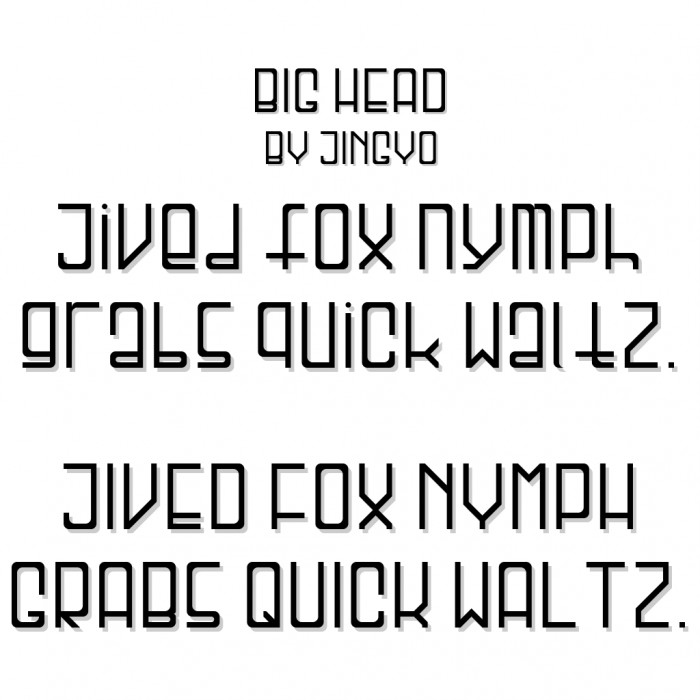
• If you want to know, A,B,P,S.... are (head)3:1(body).
MOST OF letters are 12x6 except I,T,Y,f,i,l,m,t,y
I've made the numbers thinner. i d even k y. but they look better like this
What about Long leg font? do you guys want a "Long Leg"?
[slashes](Problem solved)
are \  / % ø recognizable? thanks to Se7enty-Se7en and Cookielord, \/%Ø is now better.
[ogonek and stroke] (Problem solved)
ogoneks and strokes are annoying me. btw if you're speaking languages with letters that has ogonek or stroke sticked on. try to write a word with ogonek or stroke and remove the ogonek or stroke. and then recognize them
if you CAN. then why do you even put it on?? ¯\_(૦ઁᗝ૦ઁ)_/¯
[asterisk]
if you don't like it, clone it you lazybone!
Can you please add the Latin-A? Polish, Magyar, etc. use this block...
I'm still working on it. don't worry :D
So you want me to complete latin A or Polish&magyar letters?
Hey! Just bumped into your font, and gotta say it's pretty interesting. The only two complaints are slashes (they are recognizable, but specific, I think Frodo7's Legolas Pixel interpretation of these symbols will fit your font) and lines (their width varies, so the font, especially lowercase letters seem to come from different typefaces). But generally, good job!
Like this font... Superscript 2 is a tad short, Diagonals of / and \... a bit thick, You can use the smaller triangles and the squares with 1/8's missing to accomplish the right thicckness... (see figure, the middle is what you could aim for)
This is why I always tell people to research. The ogonek, in all languages that use it, represents a nasal vowel. In said languages, a word without a stroke or ogonek would alter tha sound of said character, and completely change the meaning of the word. The stroke, such as on D, T, Z, H, et cetera, alters the characters sound. stroked D = dh (the, they [dhe, dhey]); stroked T = th (thin, thistle); stroked Z = zh (treasure, measure). Does that help? The font overall, btw, looks good.
I just checked out Legolas Pixel interpretation. Its / and \ is really cool. I would like to try that design :)
About the lowwer case. what kinda idea do you have? plz send me a letter :)
Wow that's the thing i want to konw! Thnaks! it was always a problem for me. I'll try your idea. :)
I knew the problem of pronounce. but I want to see some examples. :)
Like in Chinese, my native language. Chinese as a tunal language, "識字"(Shìzì) and "石子"(shízi) sound the same when the tones are ignored, but 識字 is a verb and 石子 is a noun. We don't get people wrong even if we speak without tones.
so if i say "石子能識字嗎?" "Shízi néng shìzì mā?"
which means "Can a rock read?"
"shizi neng shizi ma?", by the grammar, I know the first "shizi" is a noun and the second "shizi" is a verb. and then I can understand this sentence.
So my question is "Can the strokes and ogogneks change the meaning?"
That's a good point. Any word can be understood given its context; so, in that regard, ogoneks are essentially irrelevant—to a native speaker. However, without them, yes, the meaning changes, like you stated with shizi. In English, we resolve that issue by spelling the word differently, such as reed, read. The strokes are not irrelevant, unless they choose to represent such sounds as we do, by using digraphs: dh, th, ch, sh, zh, et cetera. Also, I love that we have characters for these sounds in English, and have had them for hundreds of years, but do not use them. :)
P.S.: the diagonals look much better now.
The slashes are way better now, good job! Now about the lowercase (not limited to though). I meant that you should adjust the width of your lines so that they will be just perfect (Se7enty-Se7en already explained that in a comment under this font).
You're very hard-working as I see, 494 glyphs as of 2/4/18 is a spectacular number! Keep up!
Here's a simple sample I made (using a pangram 'Jived fox nymph grabs quick waltz.'), first variant featuring the sentence case while the second one is all uppercase. The shadow has a 6 pixel offset.
It just now occurred to me that I have an example of a couple of Native American languages on my Dehuti and others page, if you'd like to check them out? Diné heavily uses ogoneks.
that's cool! I only knows that polish uses ogonek. Now i know more :)